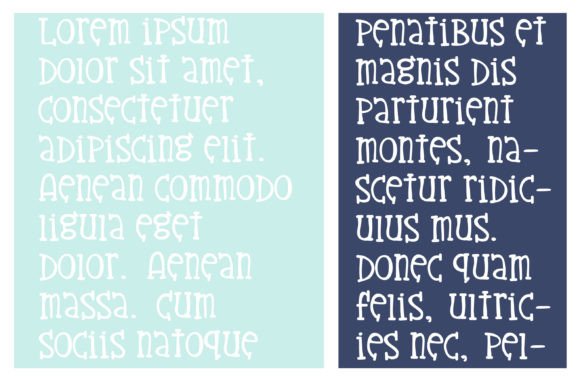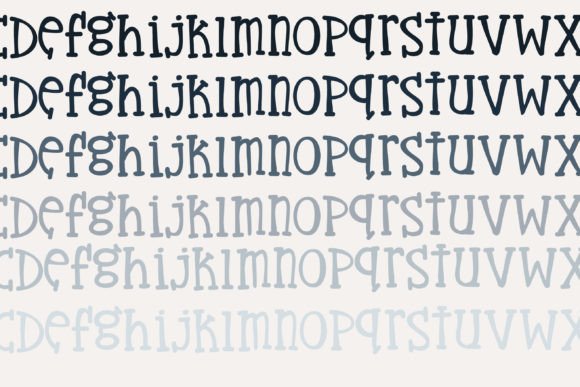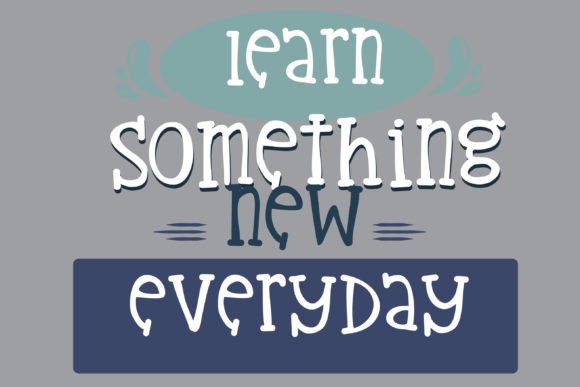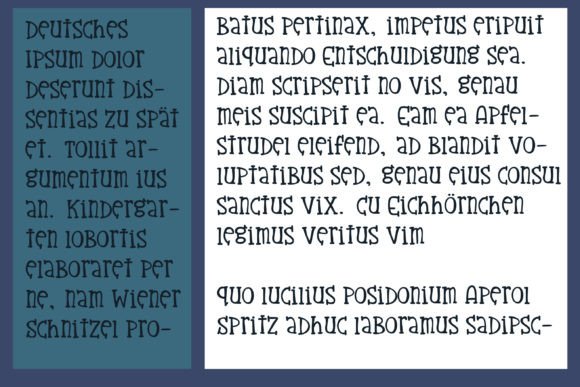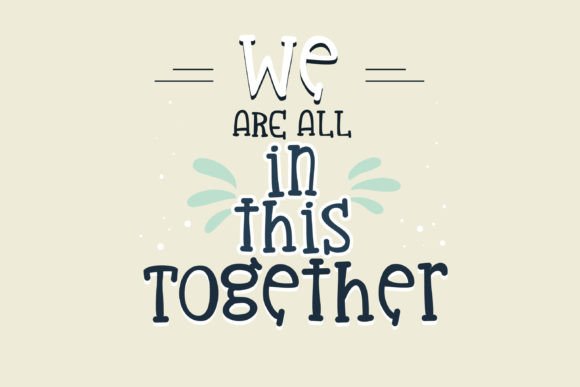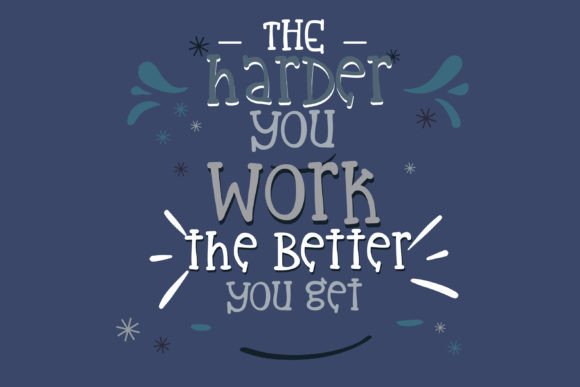
Introduction to Hollering Font
As a designer, have you ever found yourself in a creative rut, struggling to bring your ideas to life? You’re brainstorming, sketching, and experimenting, but nothing seems to capture the essence of your vision. That’s when you stumble upon a hidden gem – a hand-crafted font that speaks to your soul. For me, that gem is the enchanting Hollering Font.
This whimsical serif font, with its no descenders in the lowercase, is a true treasure trove for designers. Its hand-crafted quality gives it a unique, high-quality feel that’s perfect for invitations, greeting cards, and other design projects where you want to add a touch of personality. And the best part? It’s a free download, making it an invaluable resource for any creative project.
With its transparent background and versatility, the Hollering Font is an excellent addition to any designer’s toolkit. Whether you’re working on a personal or professional project, this font is sure to bring a smile to your face and a touch of magic to your design.
Key Features of Hollering Font
- Features a unique, bold, and playful style with transparent background
- Perfect for use in digital and print media, including logos, graphics, and typography
- Designed to add a touch of personality and whimsy to your creative project
Honest Review: Hollering Font
I recently came across the Hollering Font while searching for a high-quality design resource for a creative project. After exploring its features, I’m excited to share my honest review with you.
What works well: ✨ The Hollering Font offers a free download option, which is a huge plus for designers working on a budget. The font itself is well-designed and suitable for a wide range of creative projects. I particularly appreciate the transparent background, which allows for easy customization and layering. The font’s unique style and flair make it an excellent choice for adding a touch of personality to your designs.
- Unique and playful style
However, I do have a few concerns: ⚠️ The font may not be suitable for formal or corporate projects due to its playful nature. Additionally, the font’s versatility is limited to creative projects with a similar tone and style.
Overall, I’m impressed with the Hollering Font’s design quality and the freedom it offers with its free download option. While it may not be suitable for all projects, it’s an excellent choice for designers working on creative, playful projects.
Hollering Font
Tips for Getting the Most Out of Hollering Font
Use the Hollering Font in combination with other high-quality design resources to create a unique and cohesive look. Experiment with different font sizes and styles to add visual interest to your design.
The Hollering Font is perfect for creative projects such as social media graphics, blog posts, and marketing materials. Its unique design makes it ideal for adding a touch of personality to your branding and marketing efforts.